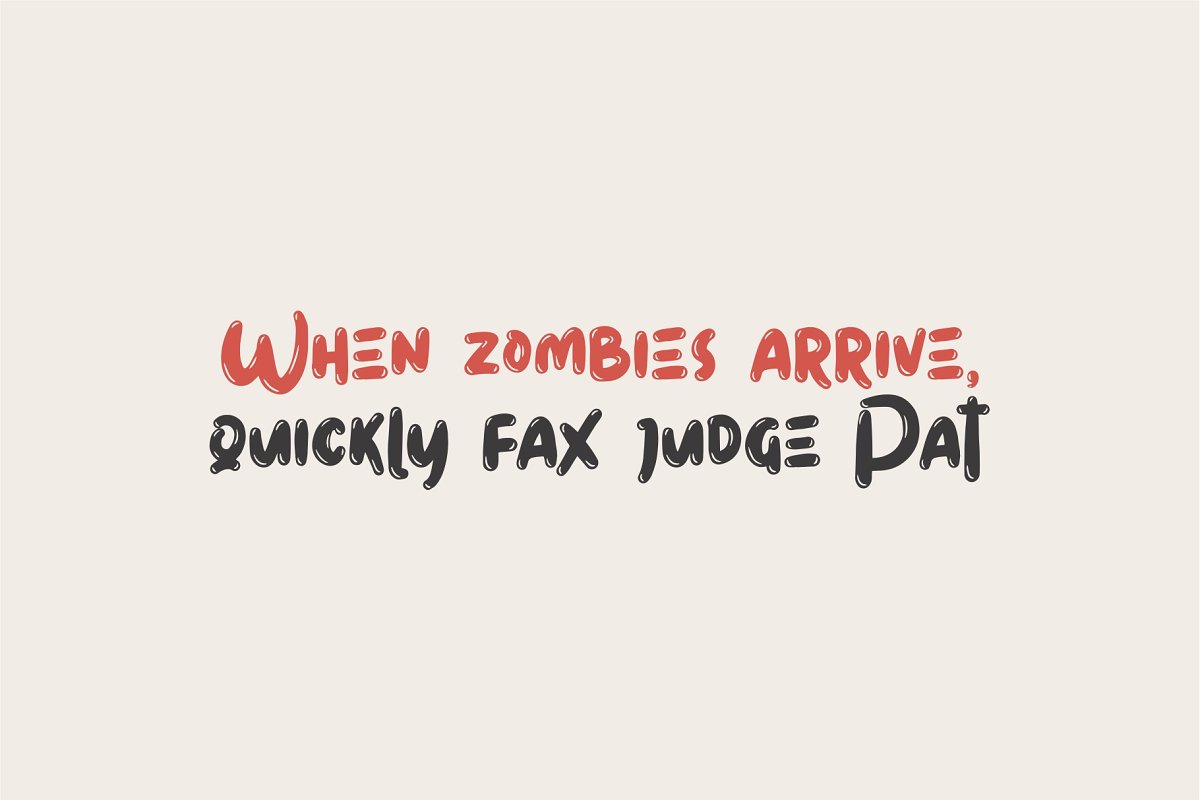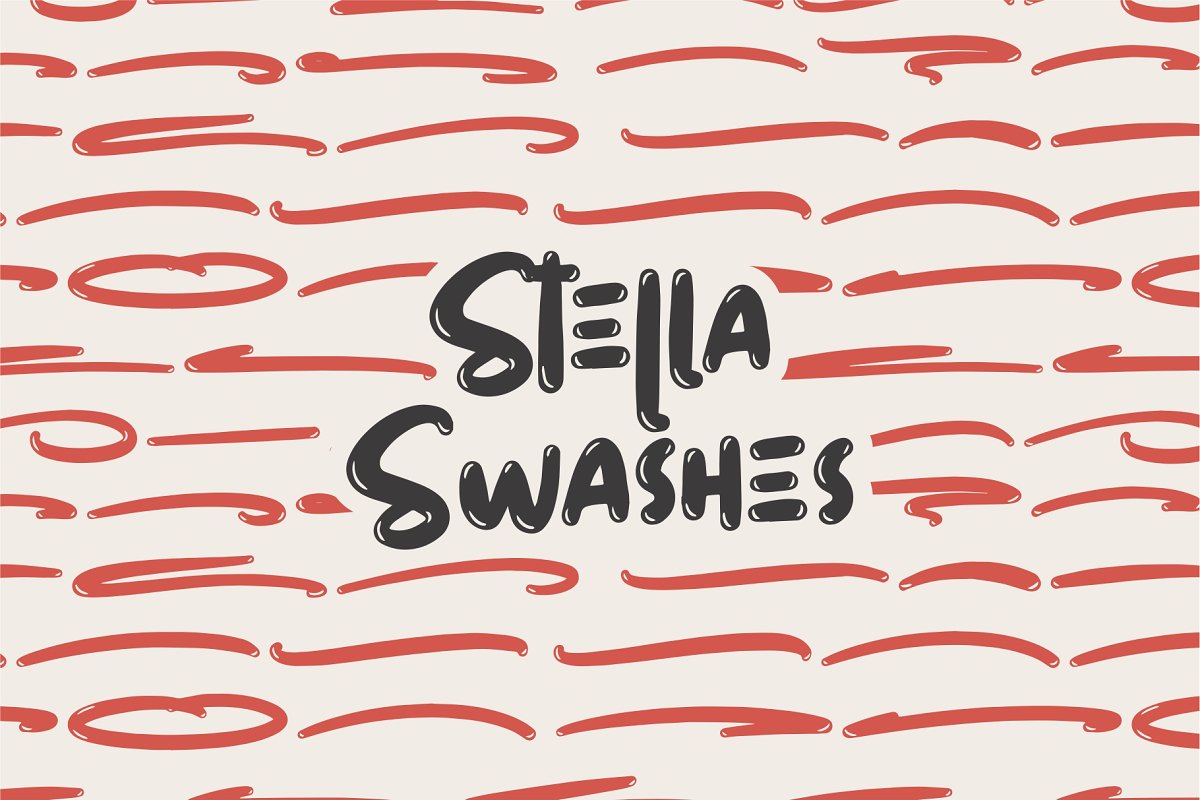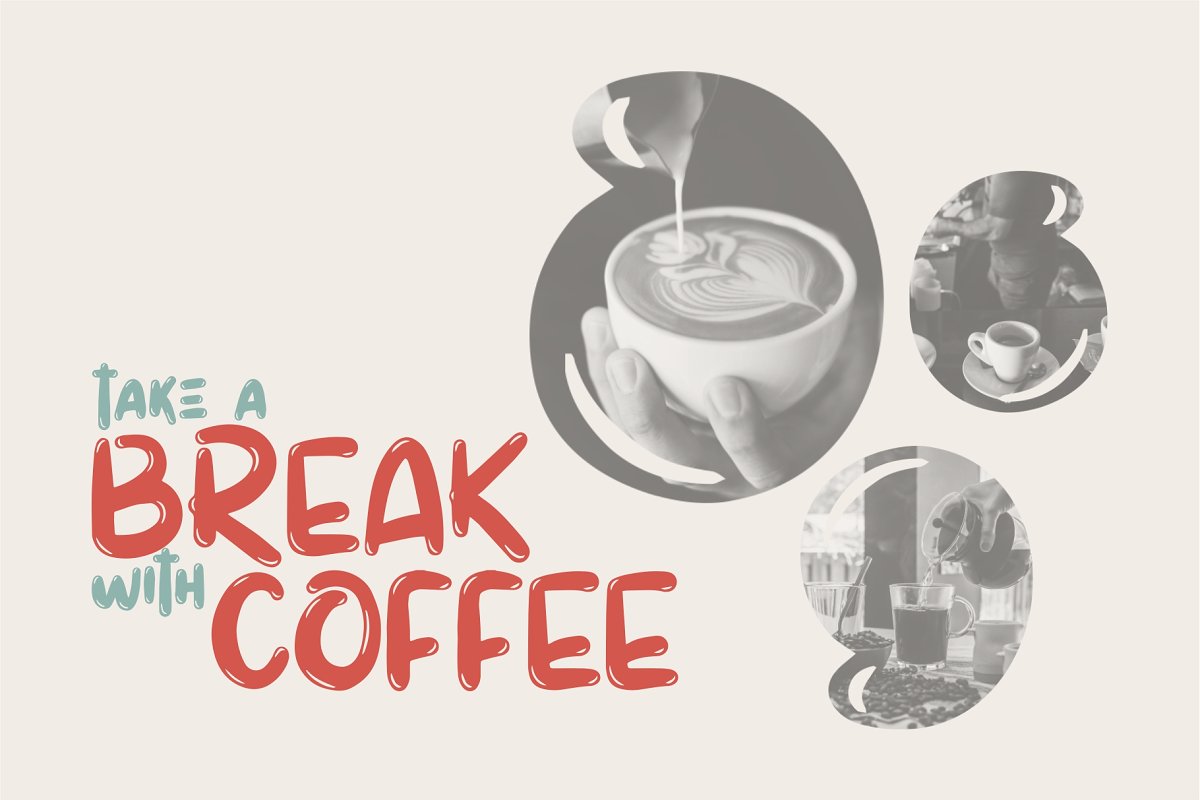
Stella Script Font
Stella Script Font – Free Demo
Hi Designer! This is a bold script typeface which is simple yet casual. Introducing Stella Bold Script Font. It is designed and shared by Good Java Studio. Stella born from bold and fun style fonts. With many differenst swashes you need for the great work ever. That’s available on other file from letter A-Z and a-z.